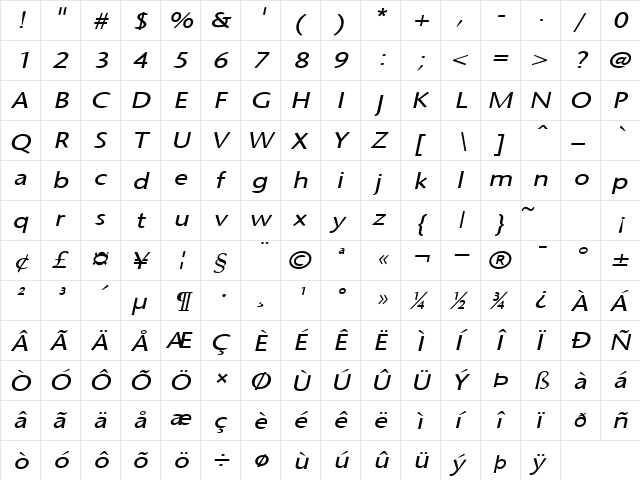
Optimist-Extended Italic
Design Context for Optimist-Extended Typeface
Optimist-Extended offers clean, dependable letterforms without strong stylistic allegiance, making it a practical choice for designers who need flexibility. The dynamic lean of this cut emphasises speed and emphasis in any layout.
Pro Tip: Use Optimist-Extended for emphasis, pull quotes, and subheadings where its slanted energy can add rhythm to the layout.